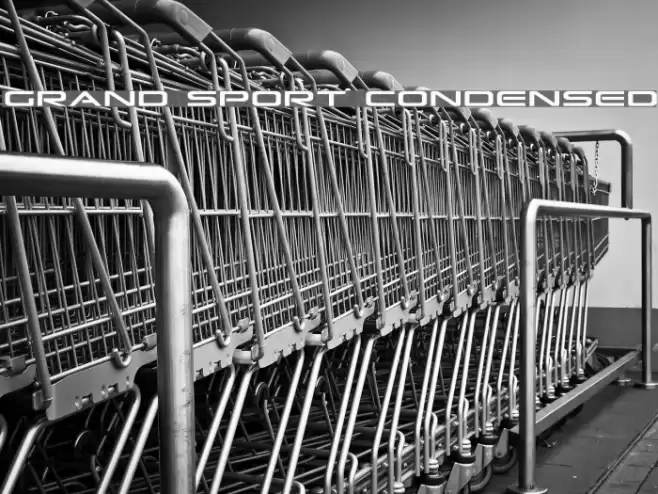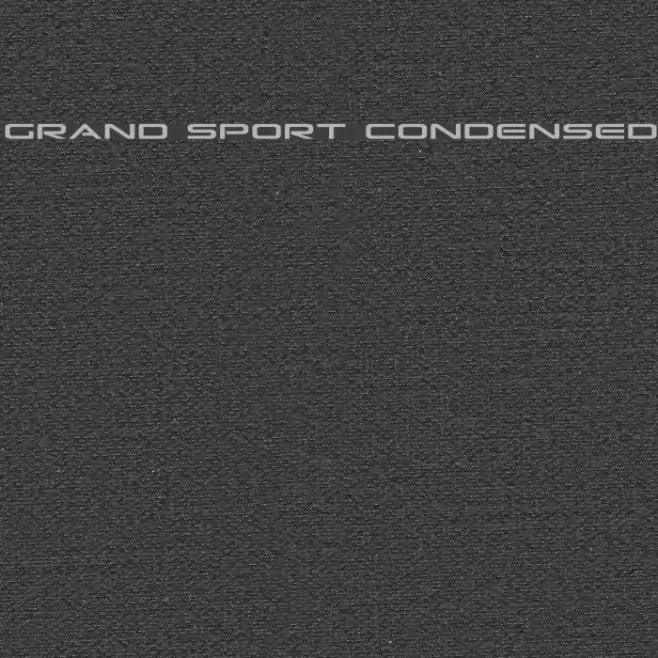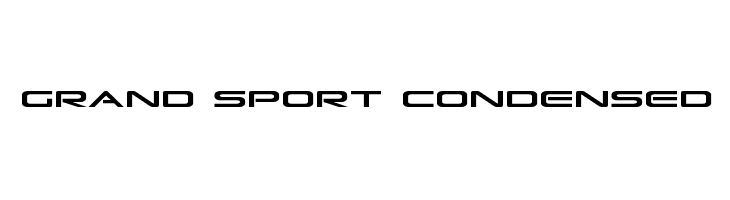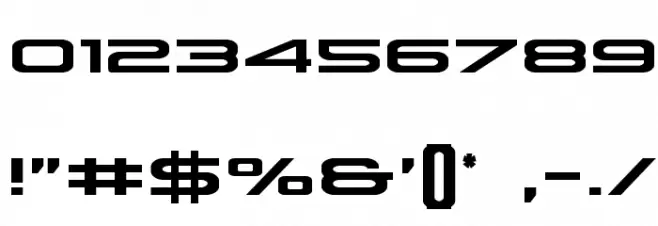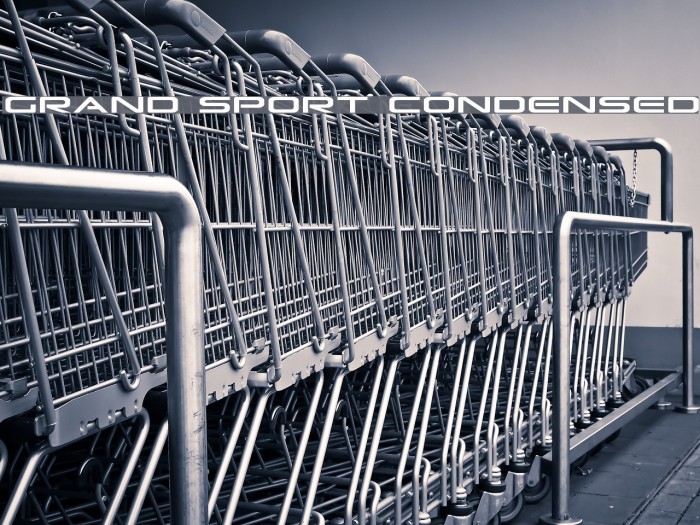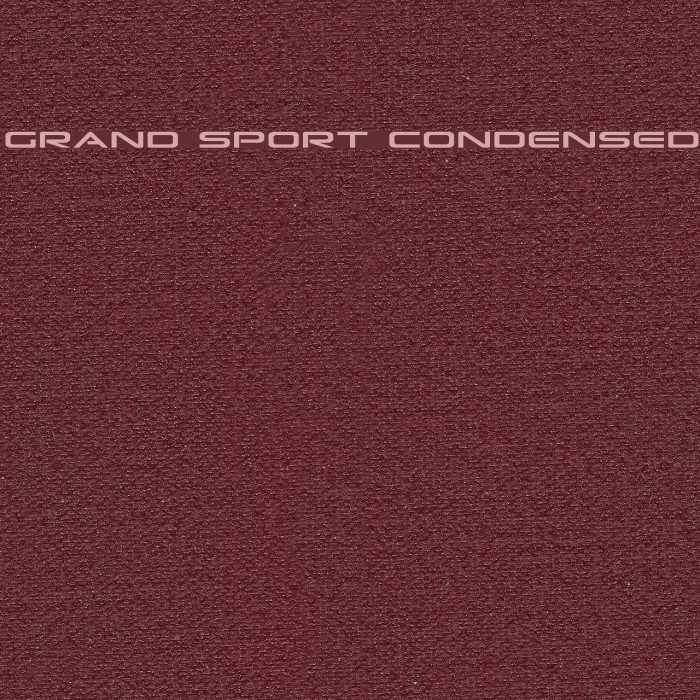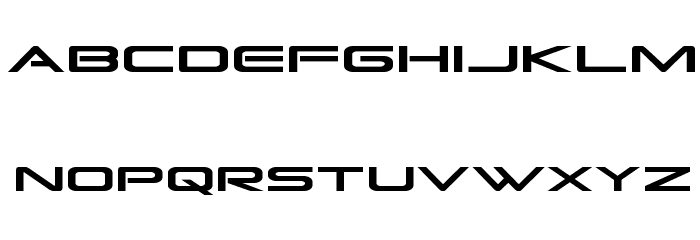
Grand Sport Condensed Font
Grand Sport Condensed Description
This font features a sleek, modern design with a condensed structure that emphasizes horizontal lines and sharp angles. The uppercase letters are bold and geometric, creating a sense of speed and efficiency. The lowercase letters maintain the same condensed style, offering a cohesive look across different text cases. Numbers are clear and easy to read, with a futuristic aesthetic that complements the overall design. Special characters are designed with the same attention to detail, ensuring consistency throughout. This font is ideal for projects that require a modern and dynamic appearance.
A sleek, modern, and condensed font with a futuristic aesthetic from Uncategorized fonts.
- Proposed Projects: Ideal for automotive branding, tech company logos, sports event posters, and modern web design.